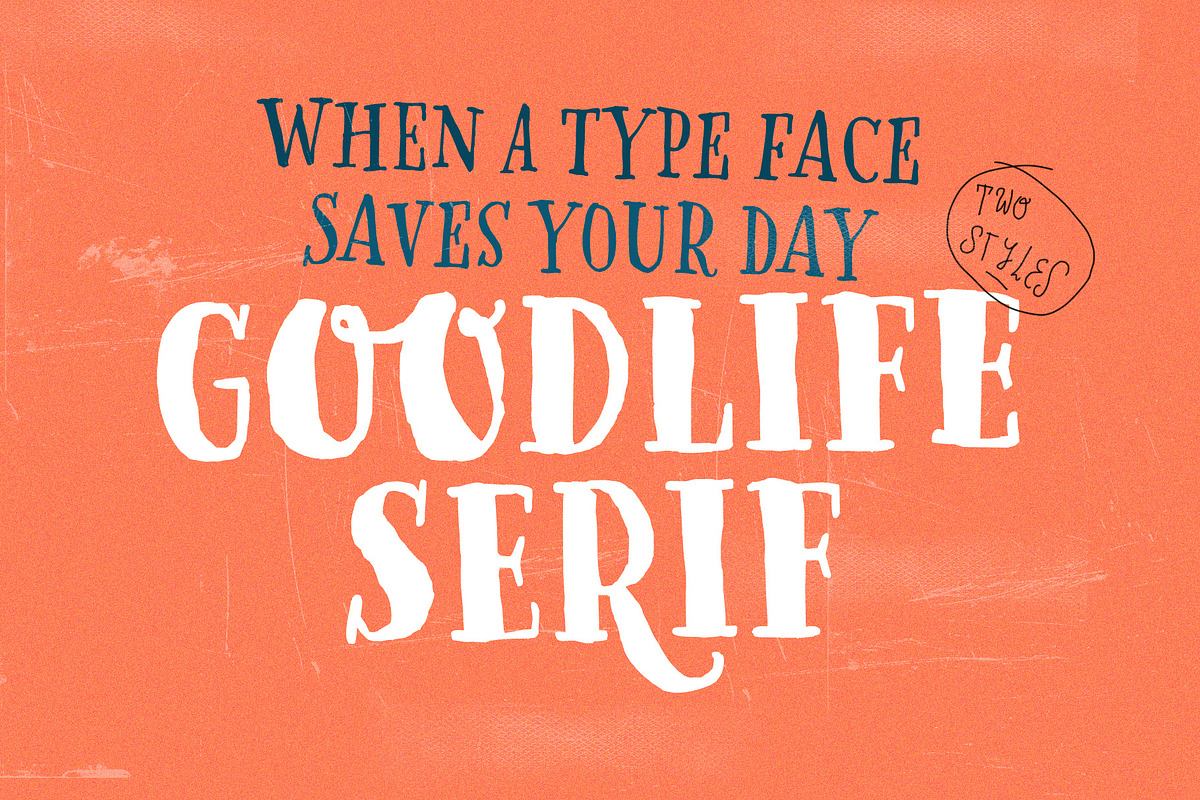
Goodlife Serif Font Free Download is a classy and timeless serif typeface that blends vintage charm with modern versatility. With its elegant curves, balanced proportions, and slightly retro feel, Goodlife is perfect for branding, editorial design, book covers, packaging, wedding invitations, and lifestyle content that calls for sophistication with character.
Using the Goodlife Serif Font Free Download gives your designs a polished and refined look, while still feeling warm and approachable. Whether you're creating a high-end logo or designing stylish website headers, this font adds a premium feel without being overly formal.